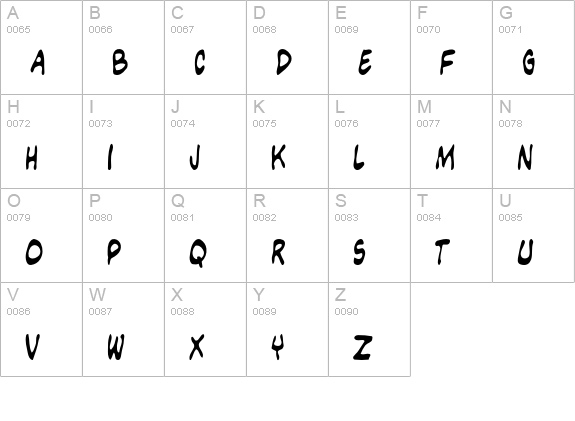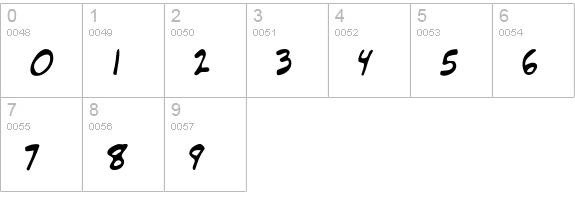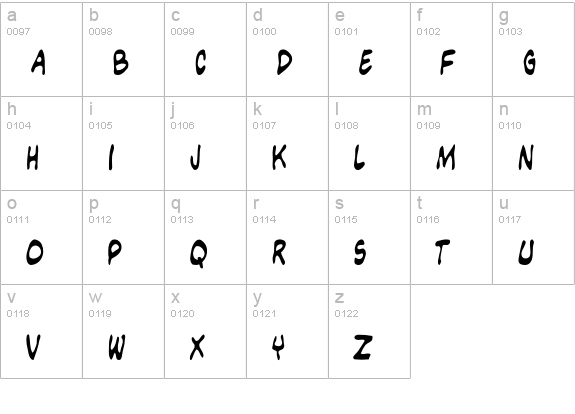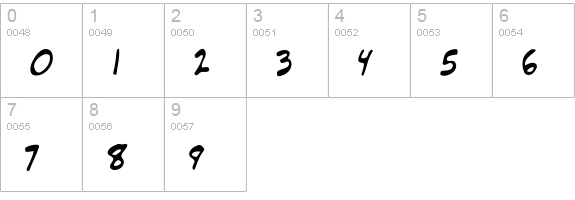
Grimmy Font Details
Introducing Grimmy font, a bold and impactful typeface that exudes a sense of edgy sophistication. With its sharp lines and contemporary style, Grimmy font is perfect for making a statement in your designs. Whether you're working on branding projects, posters, or social media graphics, this font will add a touch of modern flair. The best part? Grimmy font is completely free to download at FontsMarket.com. Yes, you read that right - you can get your hands on this stylish font without spending a dime. So why wait? Elevate your designs with Grimmy font today and let your creativity shine!